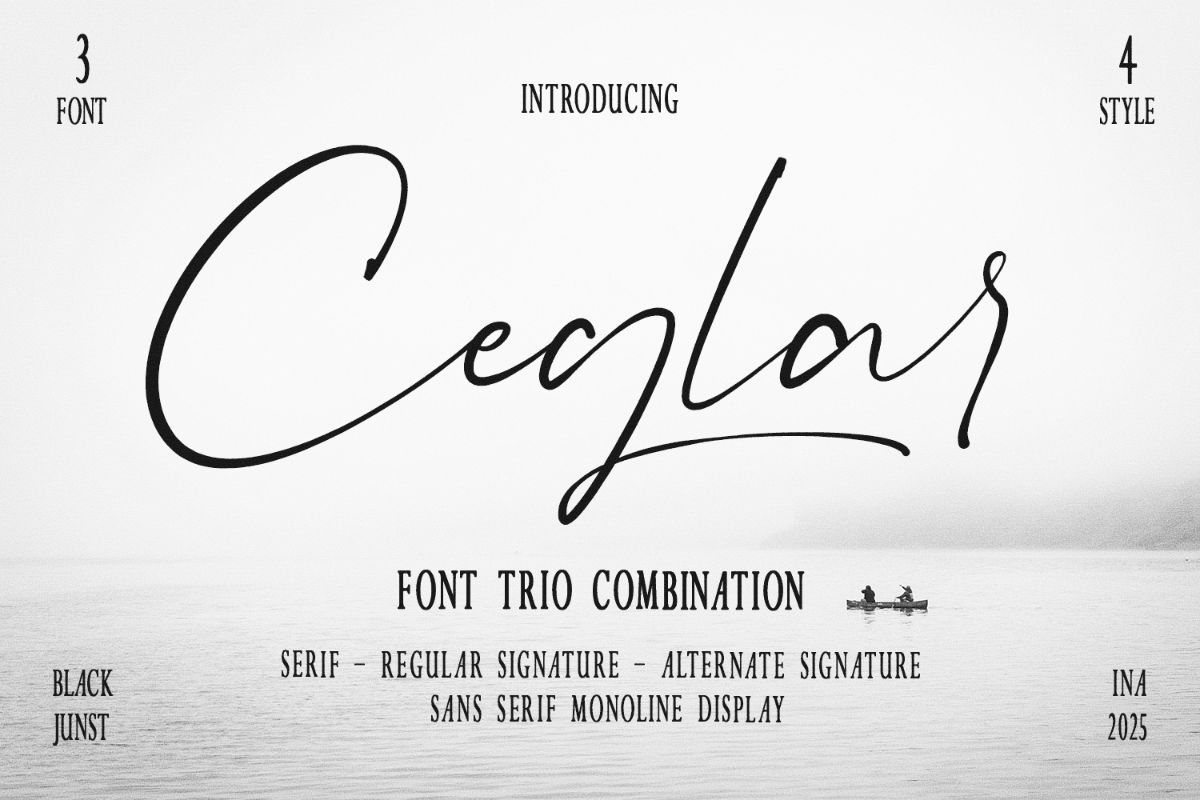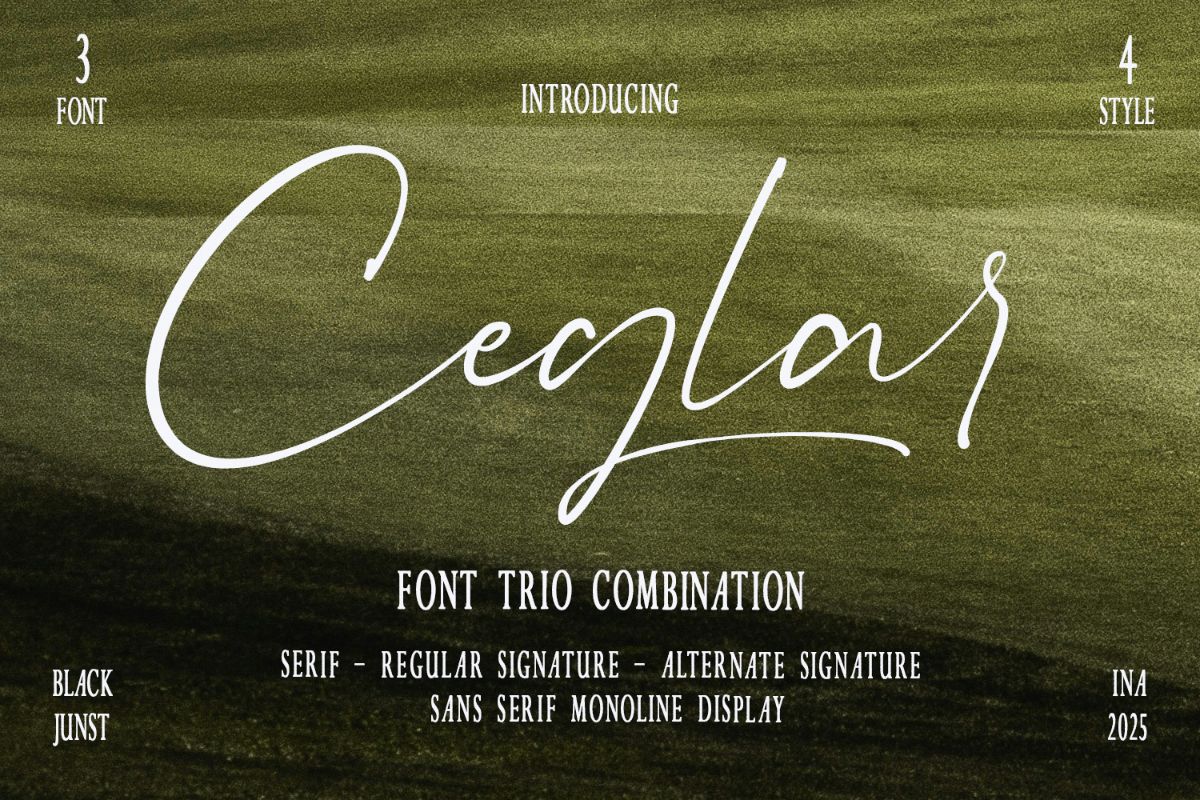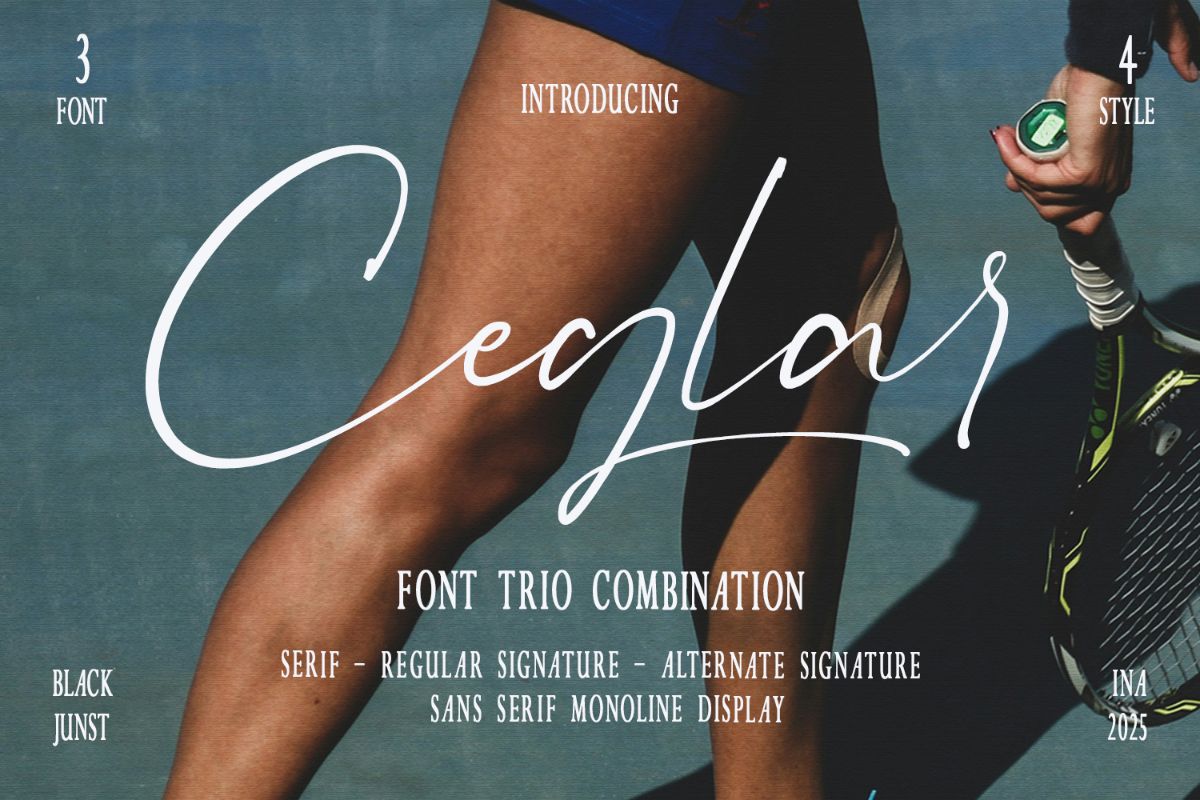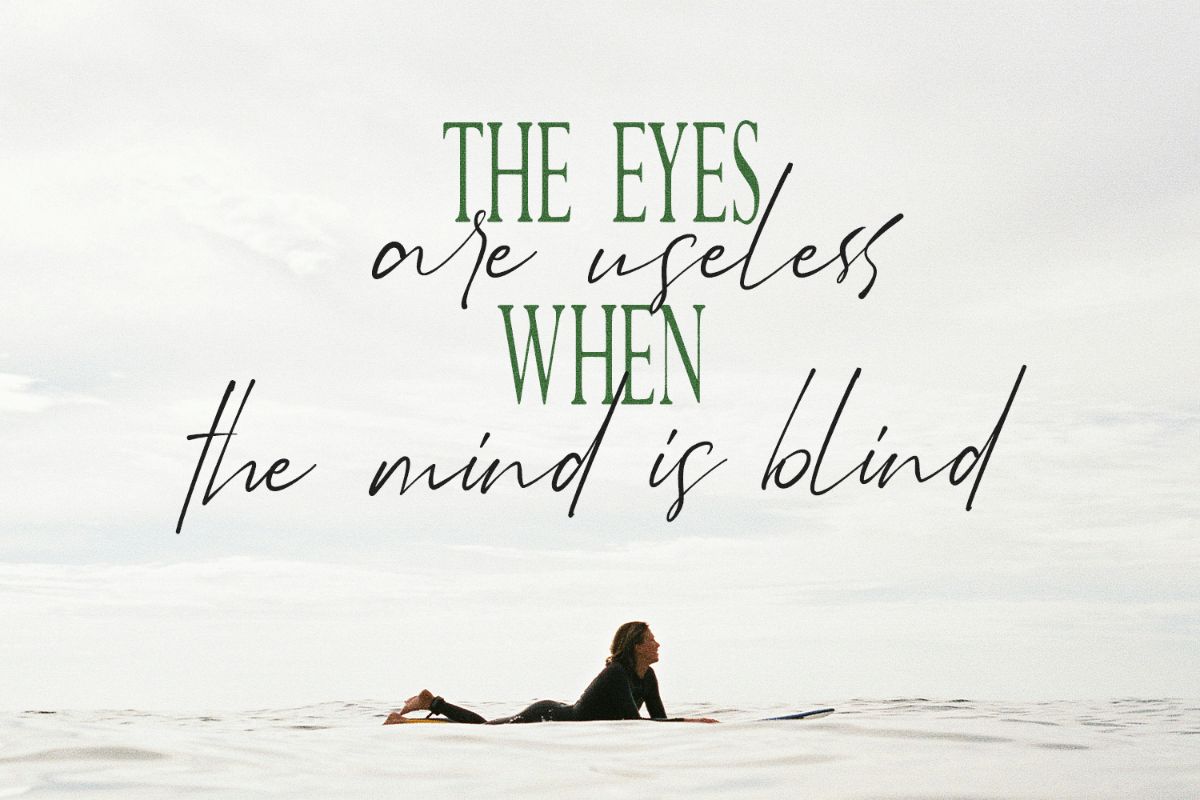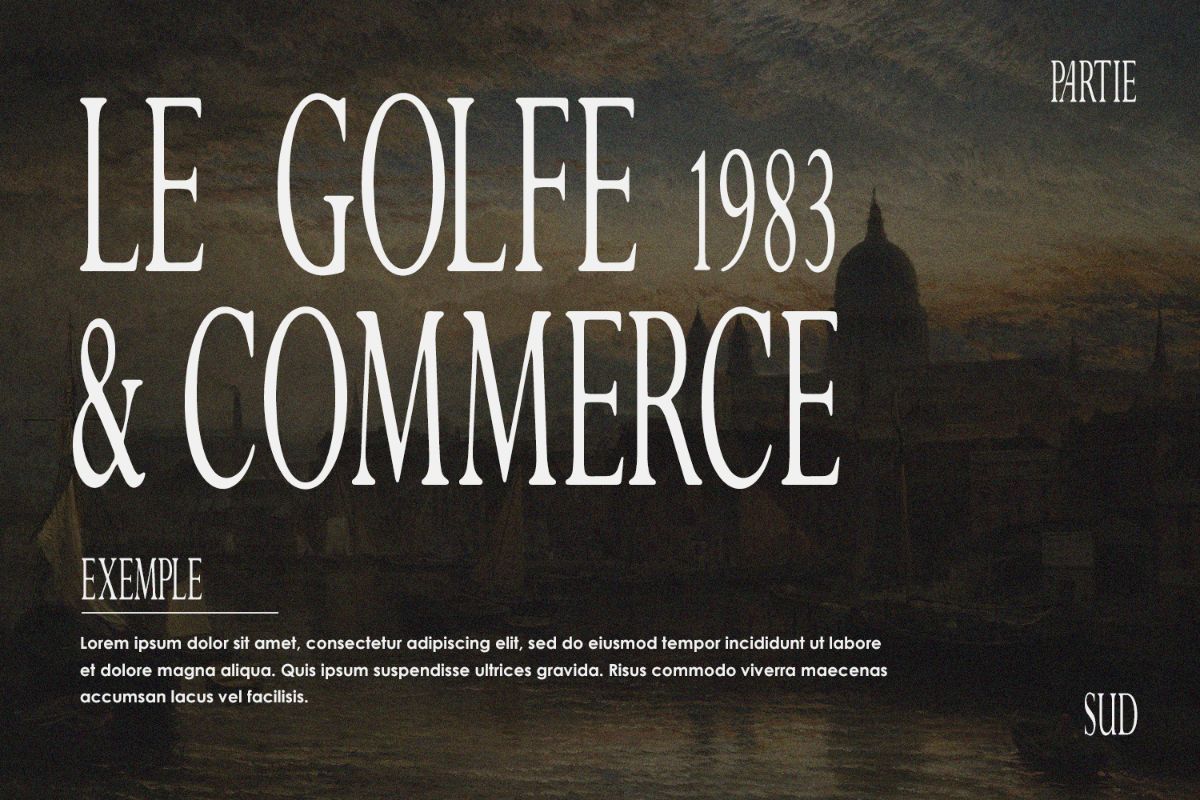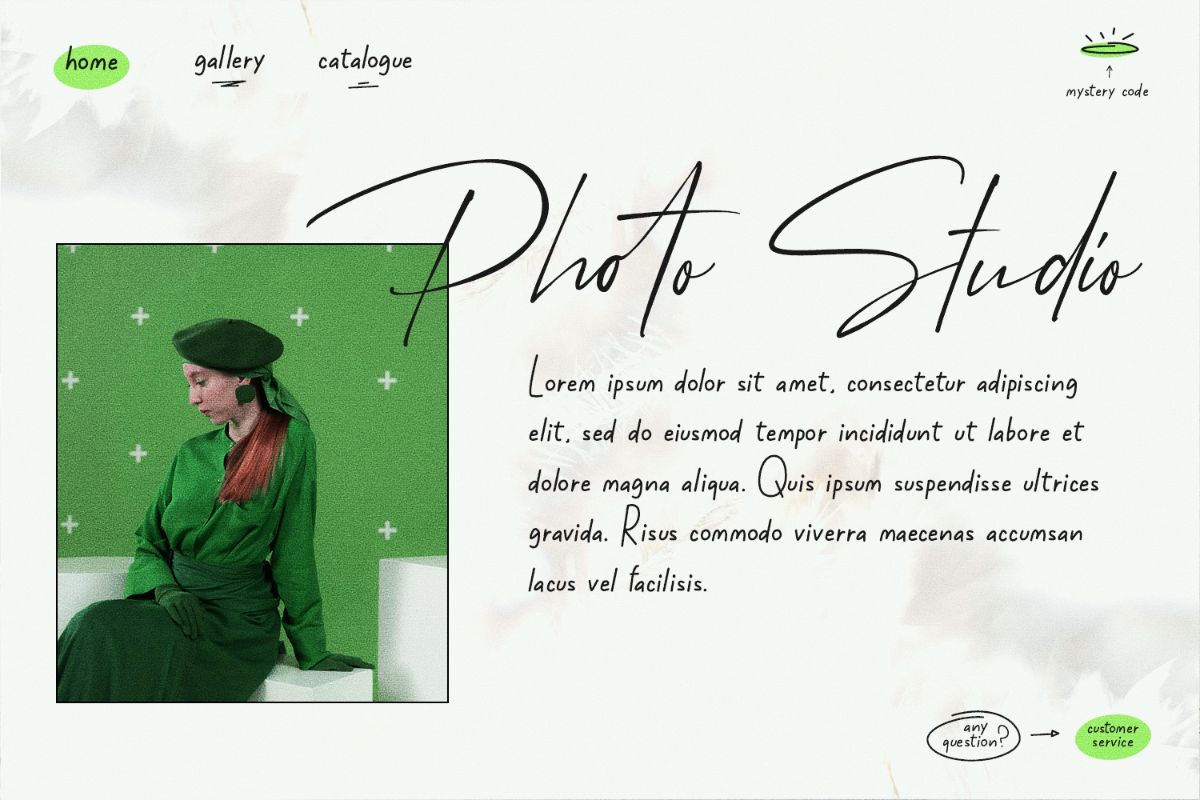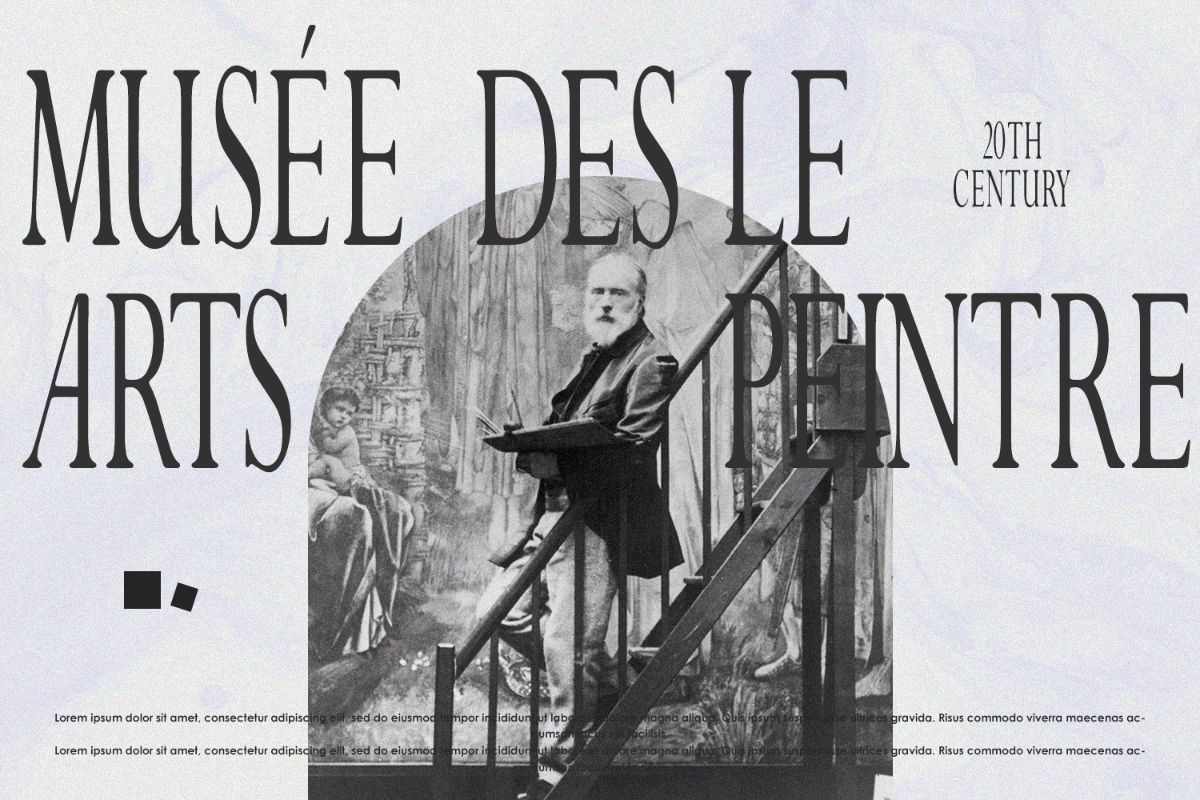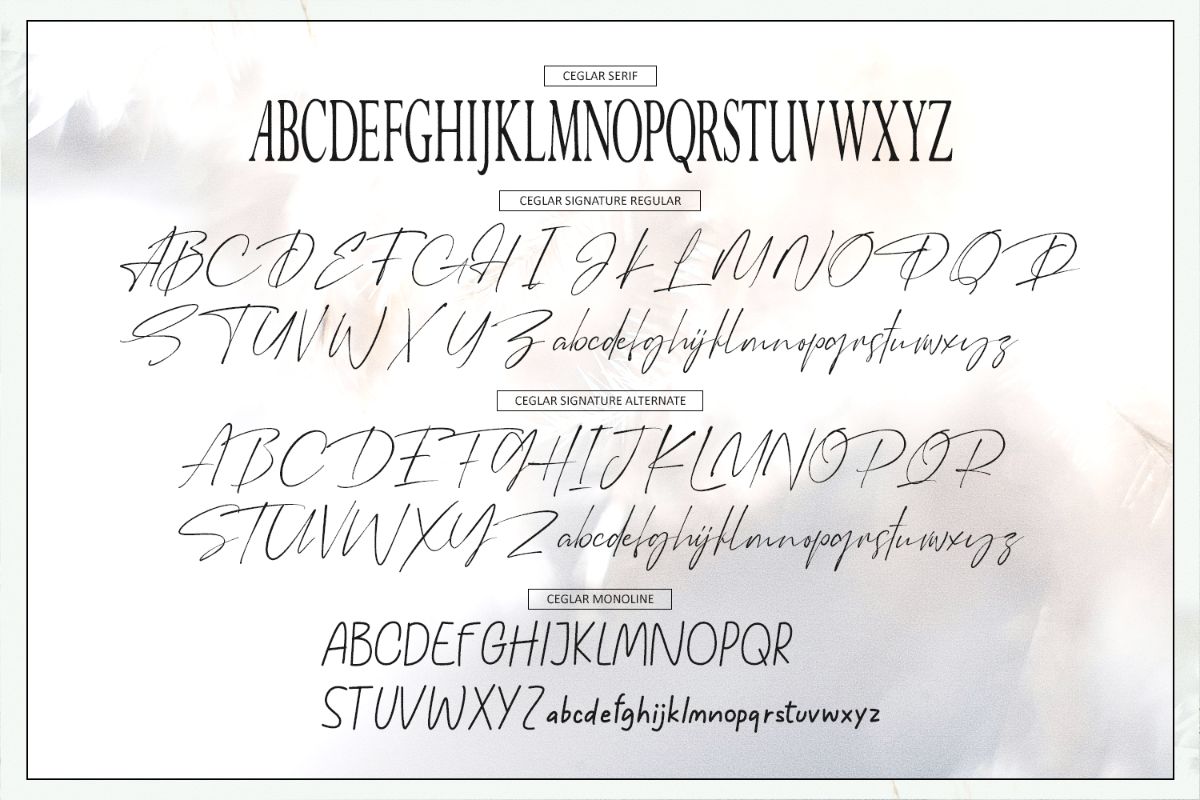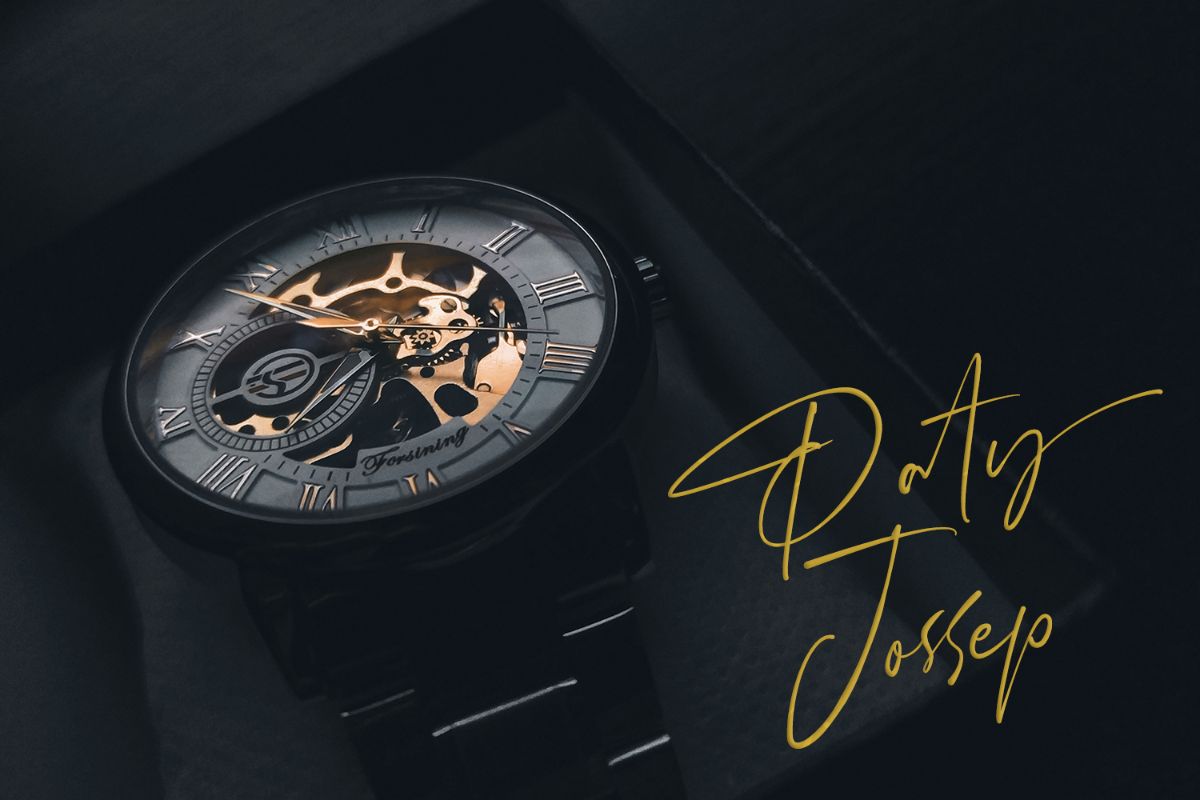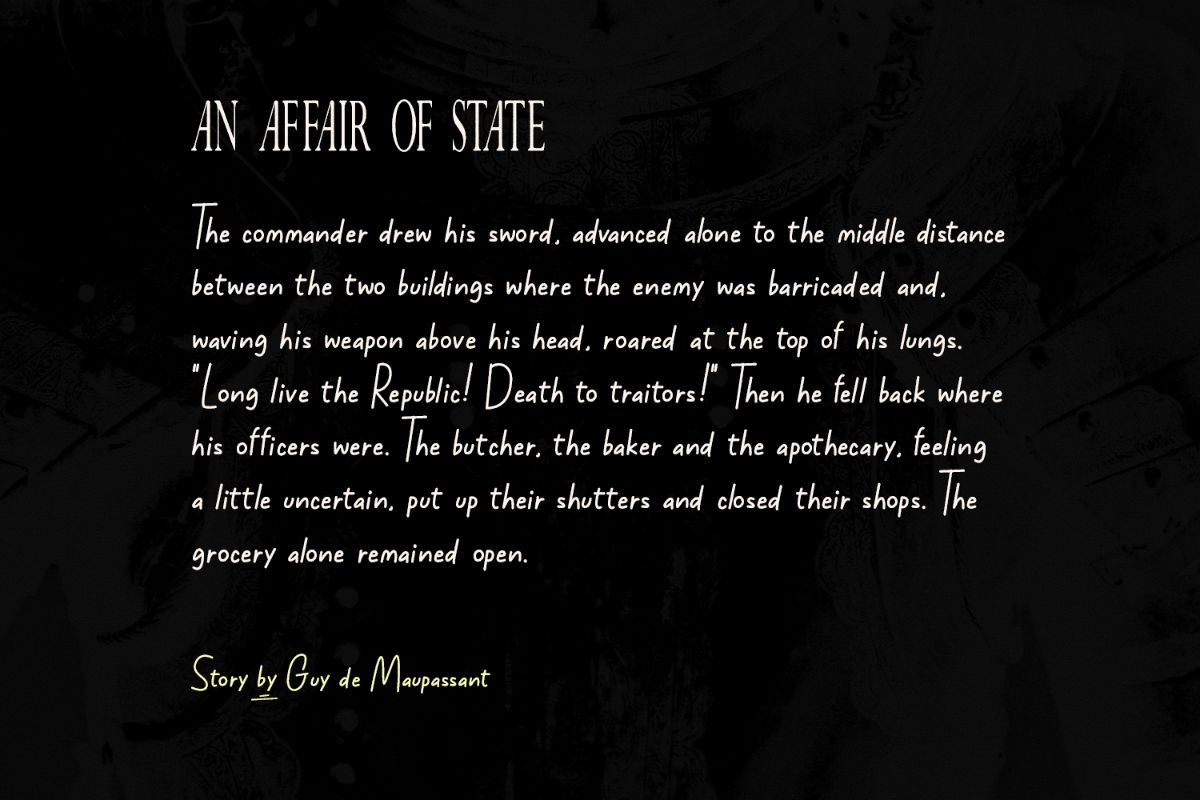
Ceglar – Font Trio with 4 Unique Styles
Ceglar is an elegant font pack featuring 3 distinct fonts and 4 unique styles, designed to give you full creative control in one versatile set. The pack includes a refined Serif Display, a clean Sans Serif Monoline, and a stylish Signature Script that comes in both Regular and Alternate versions. Together, they create a harmonious type system perfect for branding, editorial layouts, wedding invitations, product packaging, and more.
With this 4-style combination, Ceglar makes it easy to mix timeless, modern, and personal aesthetics in your design. Every font supports multilingual characters and is fully PUA encoded—so all alternates and ligatures are easily accessible. Ceglar isn’t just a font trio—it’s a complete design toolkit crafted to elevate your visual storytelling.